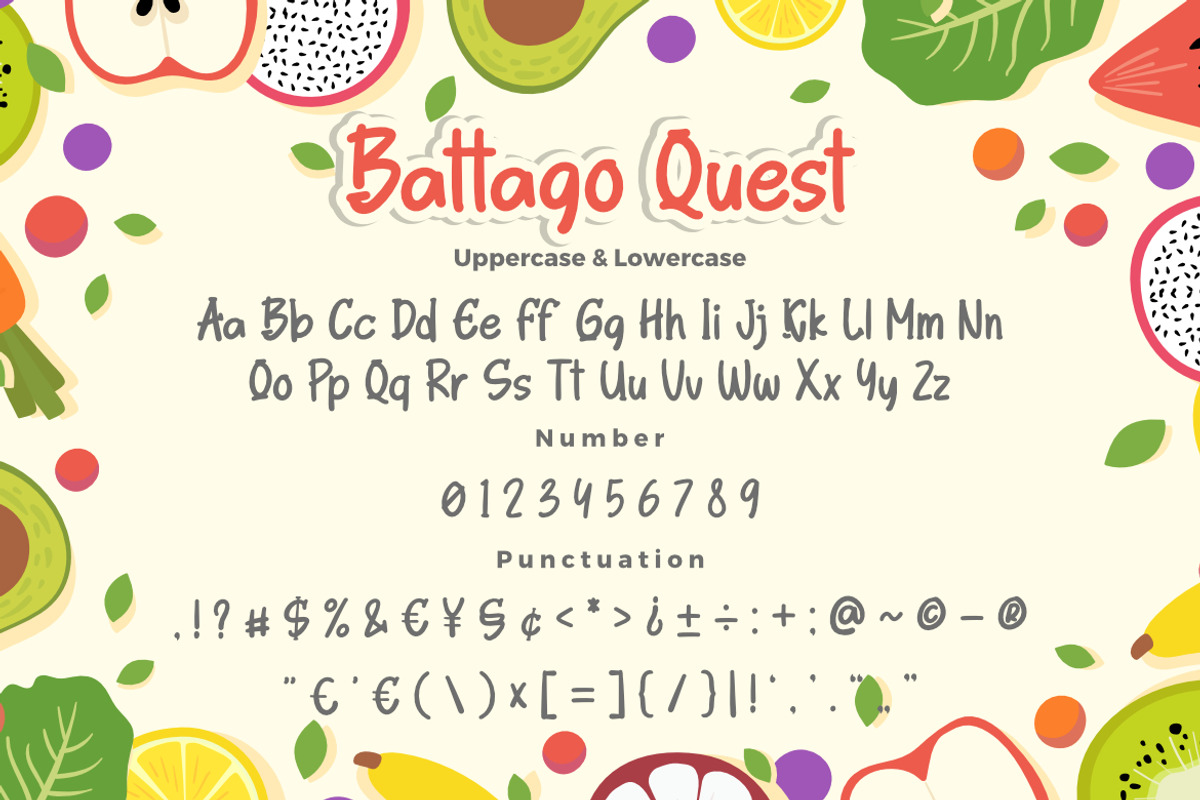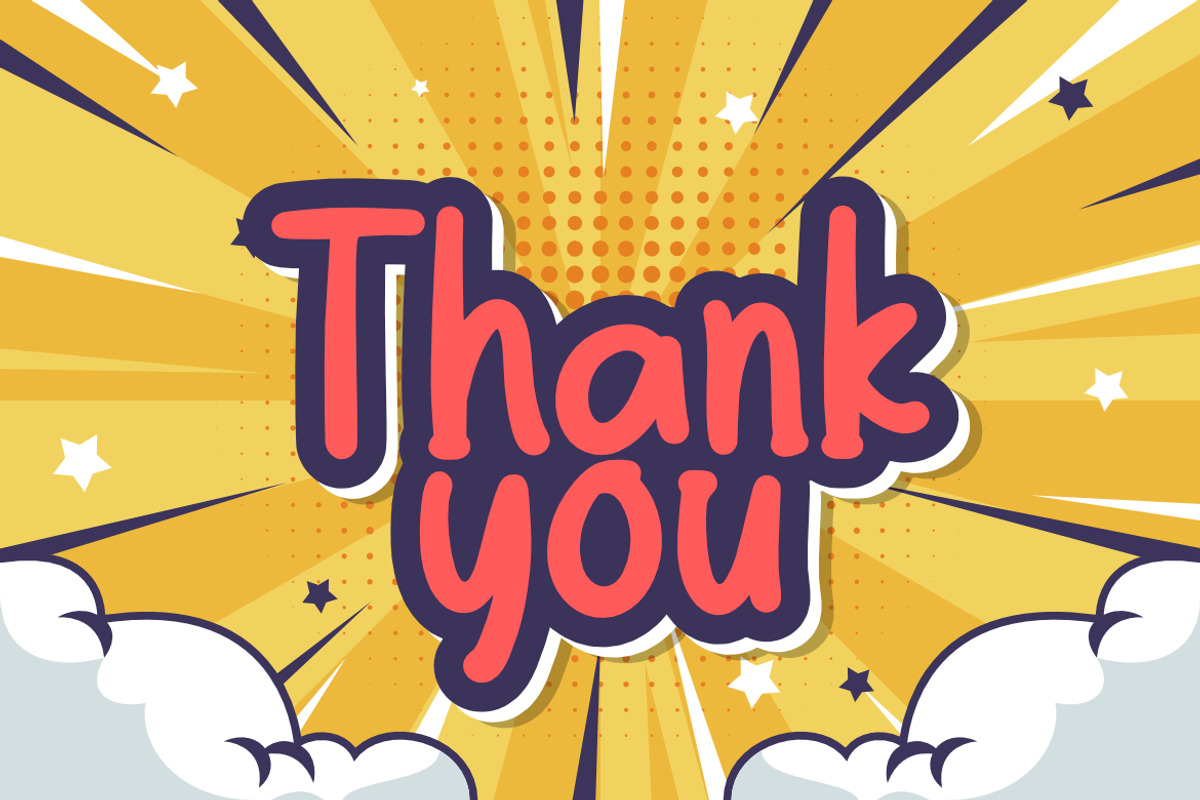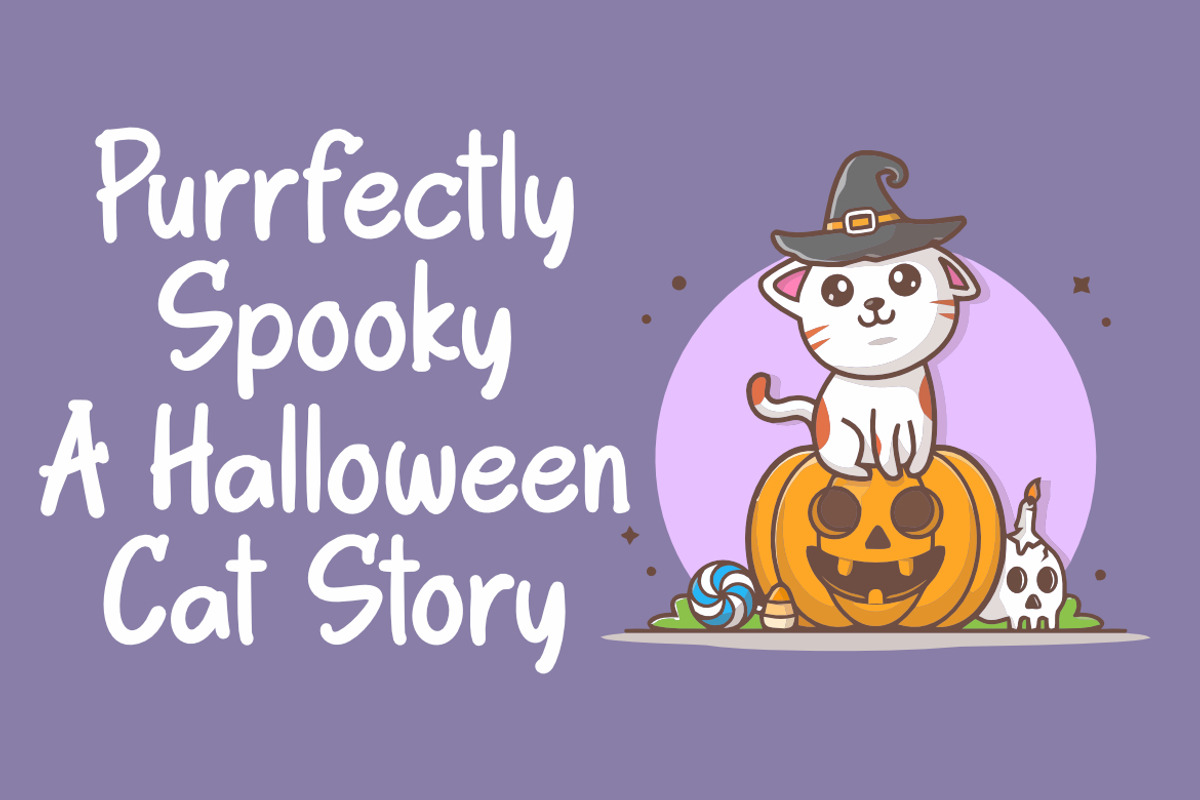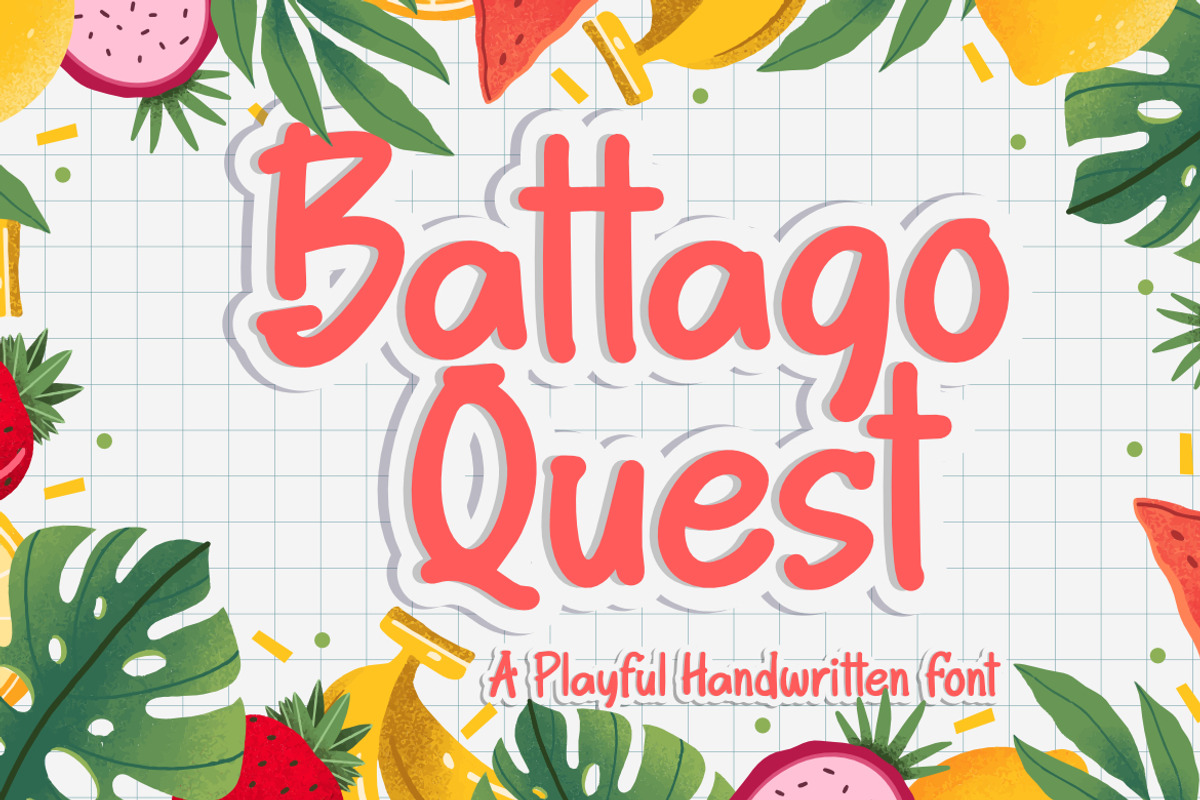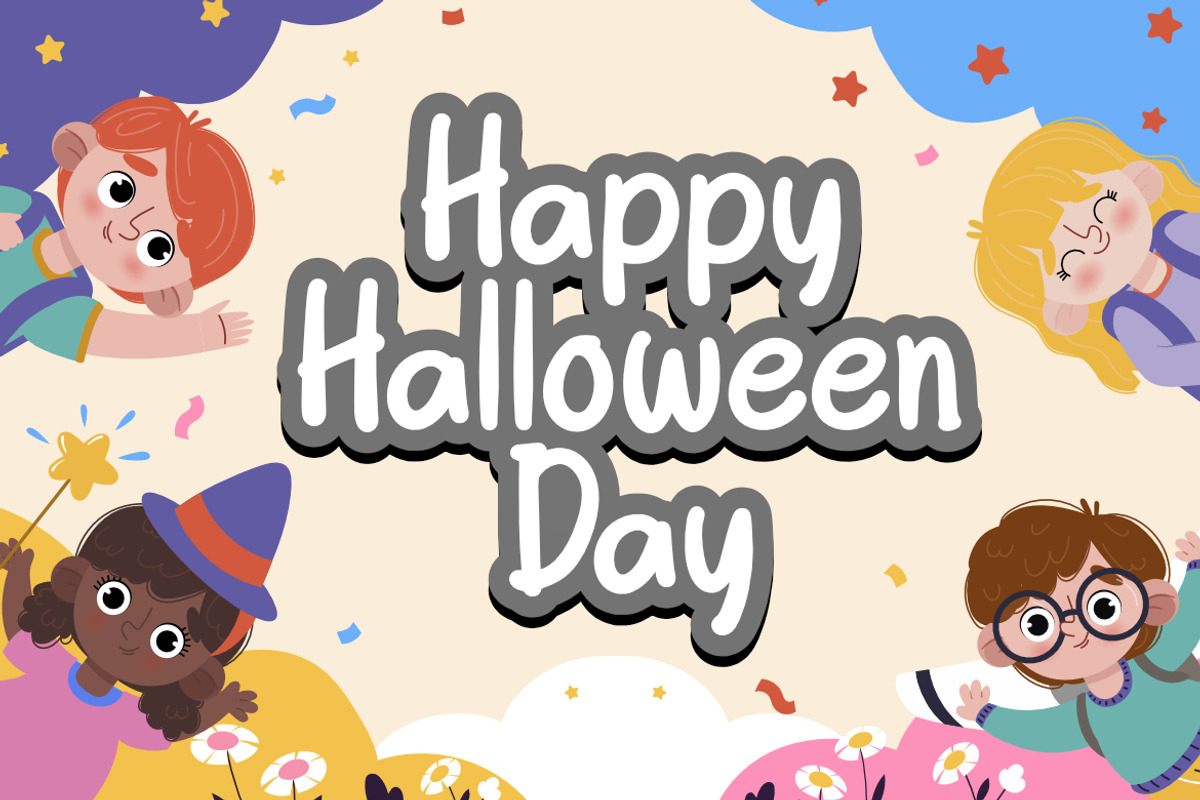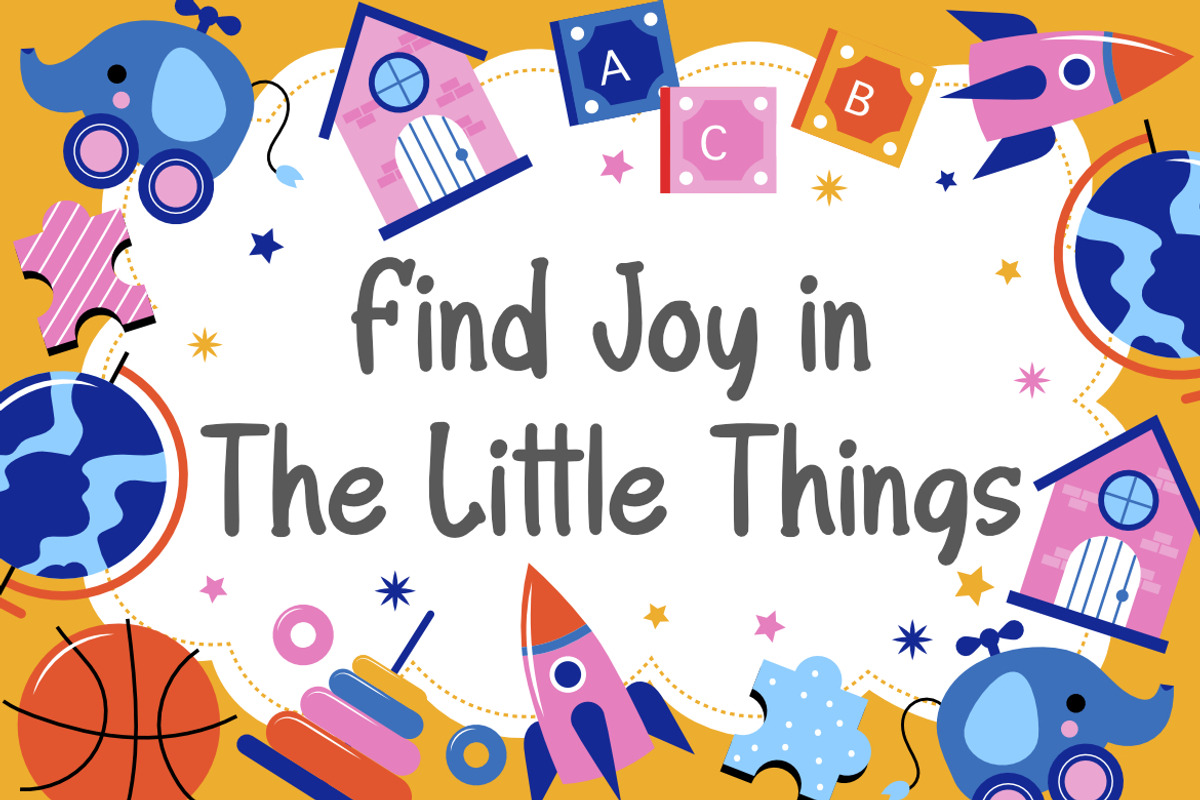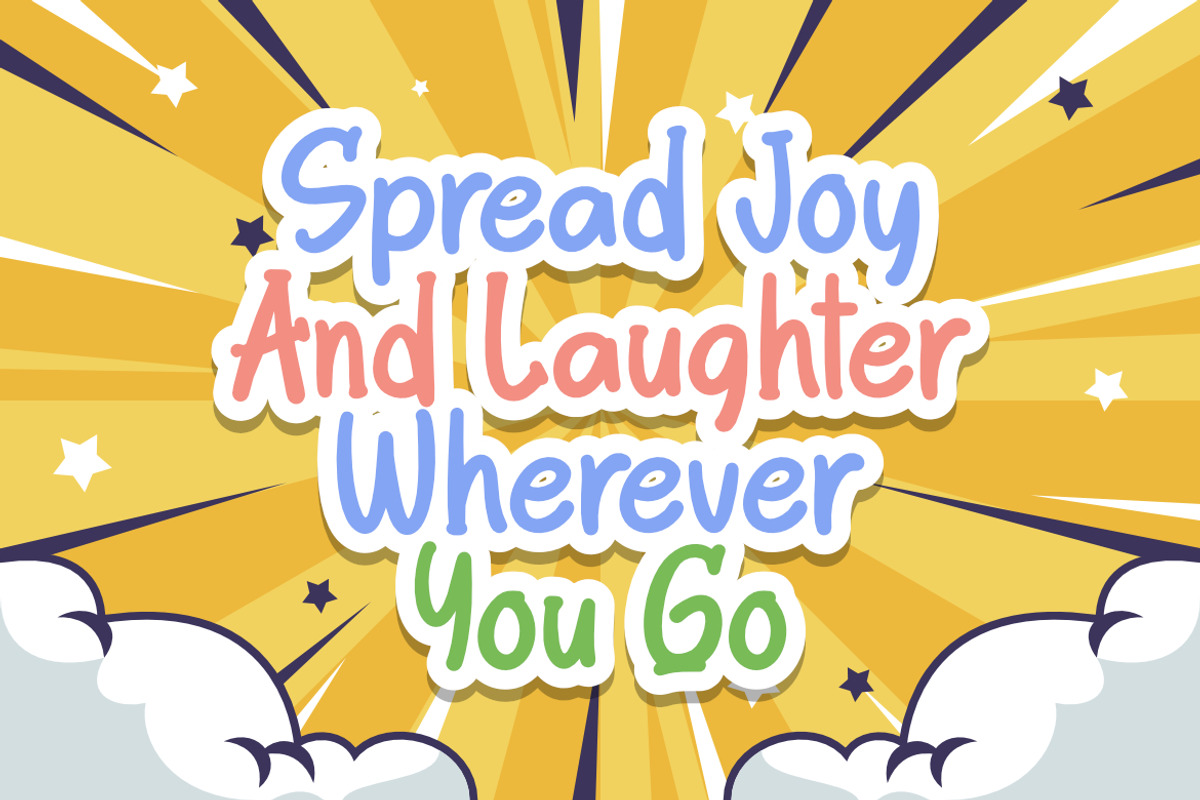
Battago Quest a Playful Font
Battago Quest a Playful Handwritten Font, This font is made with a high premium quality level which you can use as flyers, quotes, posters, banners, packaging, merchandise, logotypes and much more.